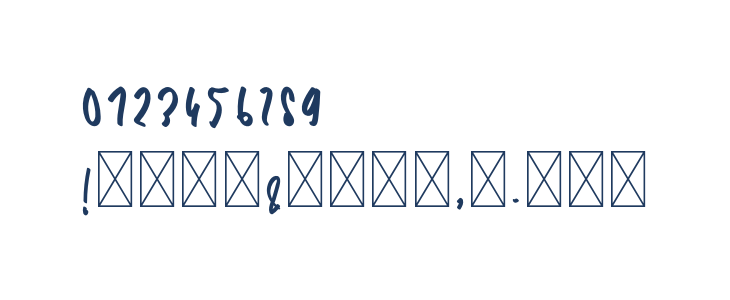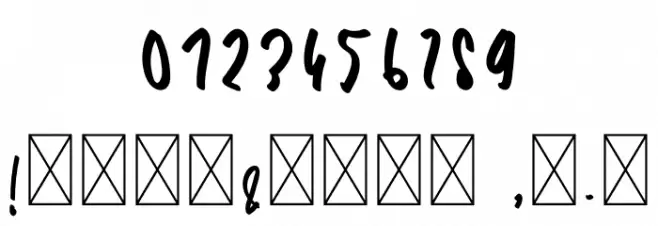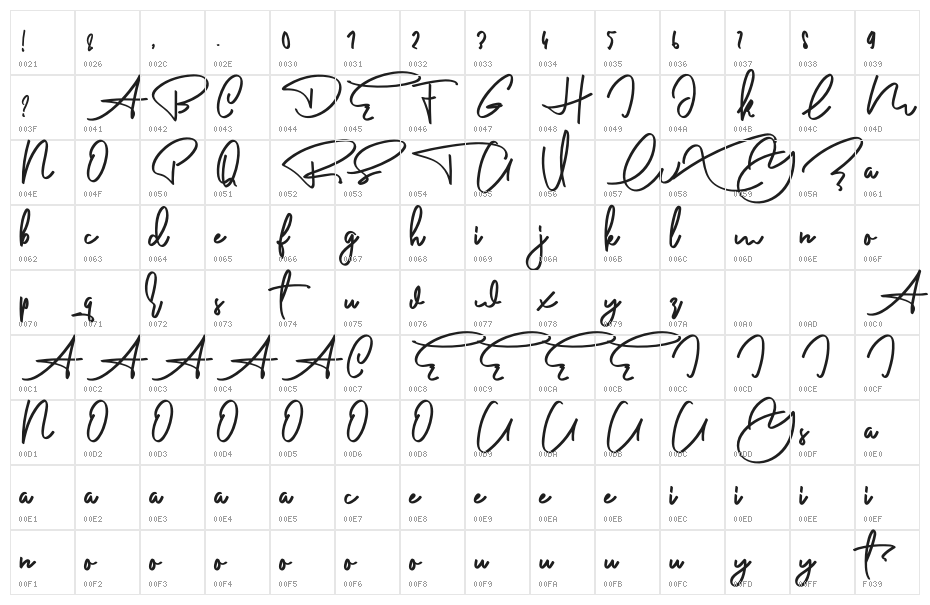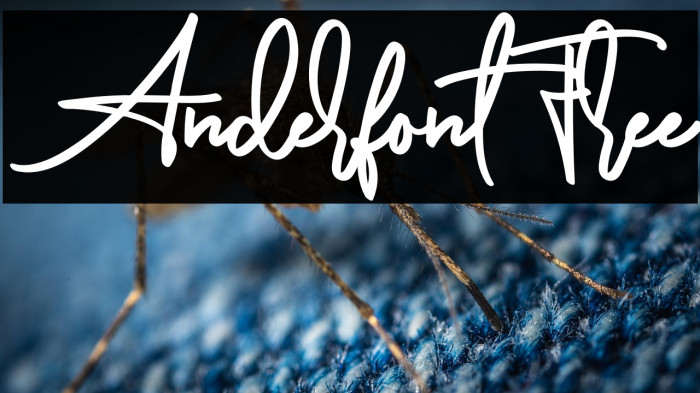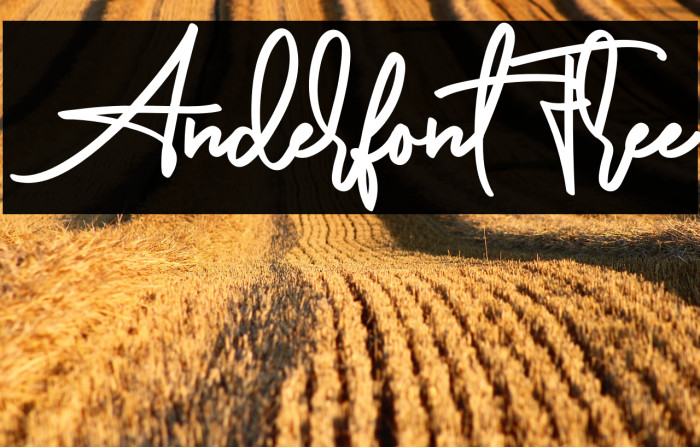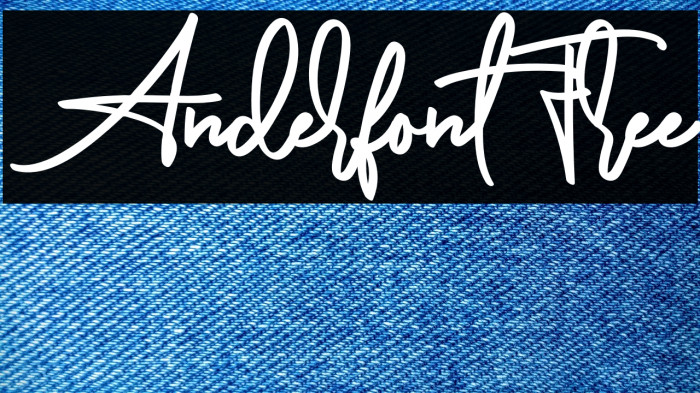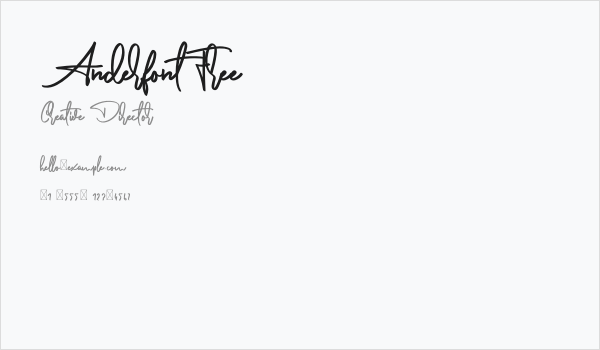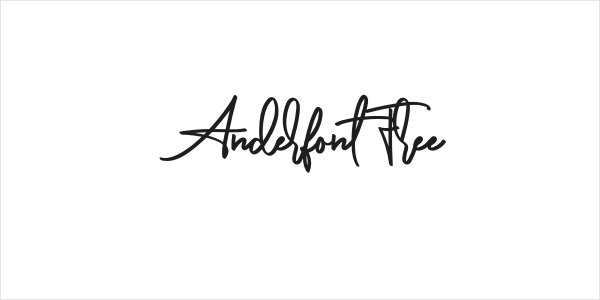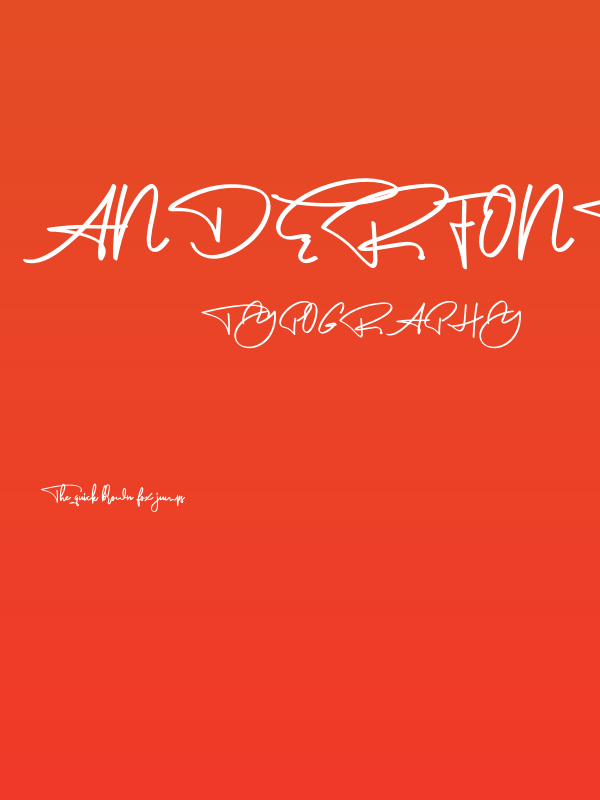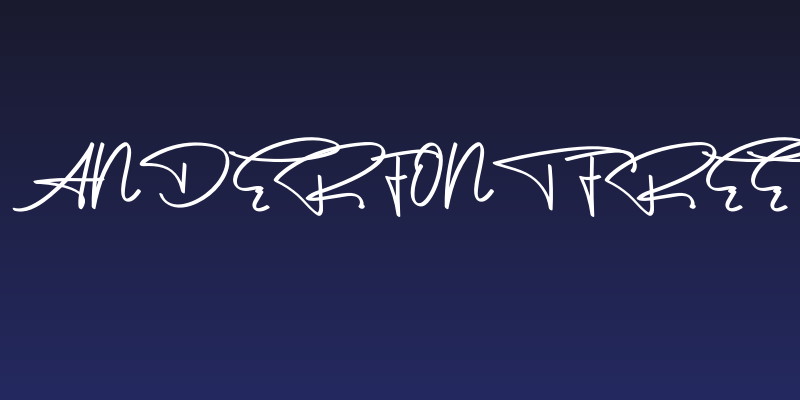
AnderfontFree Font
AnderfontFree Description
This font exhibits a dynamic and fluid handwritten style, characterized by its cursive and flowing letterforms. The uppercase letters are elegantly looped and connected, creating a sense of movement and continuity. The lowercase letters maintain a consistent style, with some letters featuring distinctive loops and swashes that add a touch of flair. The numerals are clear and maintain the handwritten aesthetic, ensuring readability. The special characters, although not fully visible, suggest a continuation of the script style. This font is ideal for projects that require a personal and artistic touch, such as invitations, greeting cards, or branding materials that aim to convey elegance and creativity.